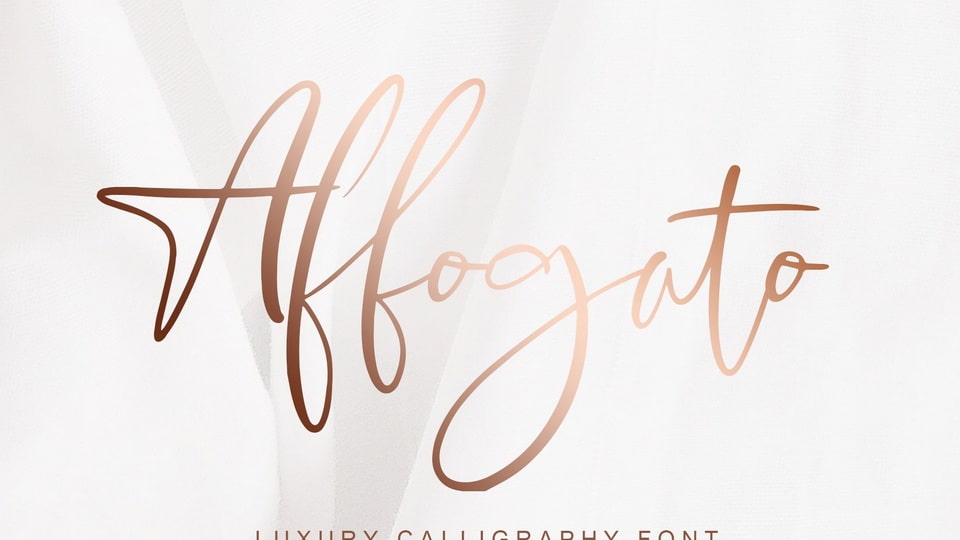
Download Affogato font, a clean, modern sans-serif typeface known for its simplicity and elegance. Designed to offer high readability and versatility, Affogato features smooth lines and balanced proportions.
Designer: Nestypefont